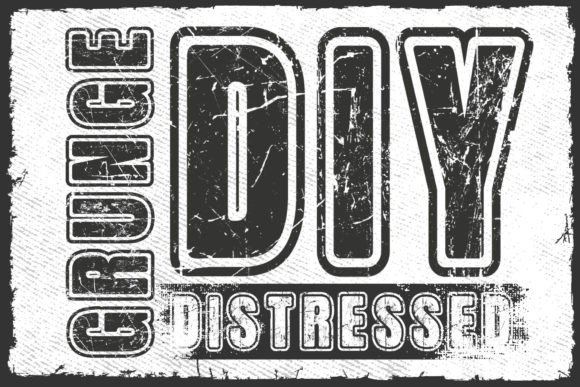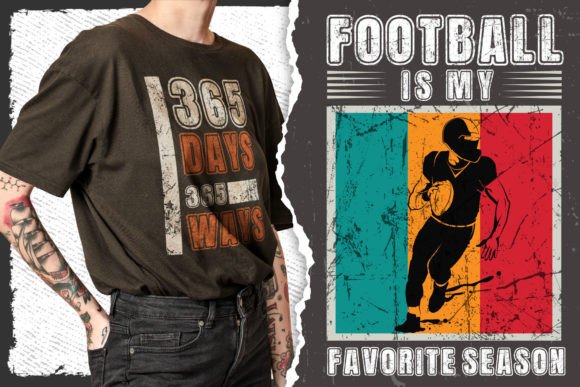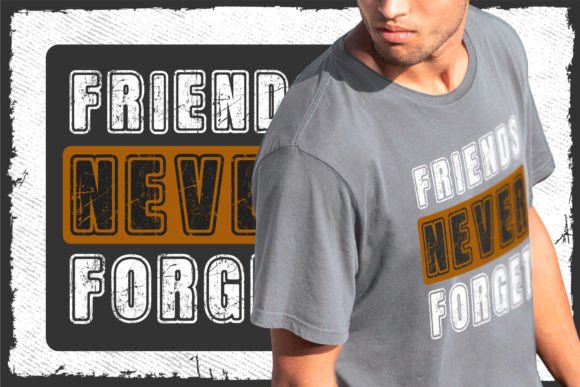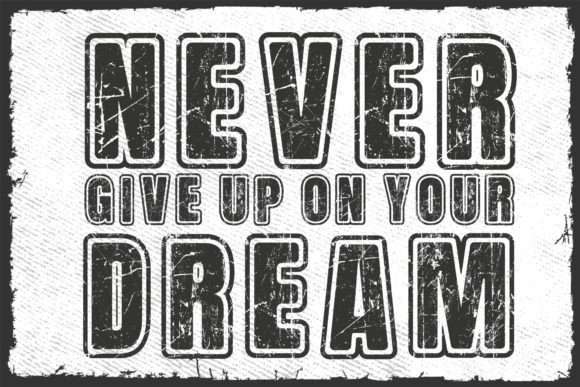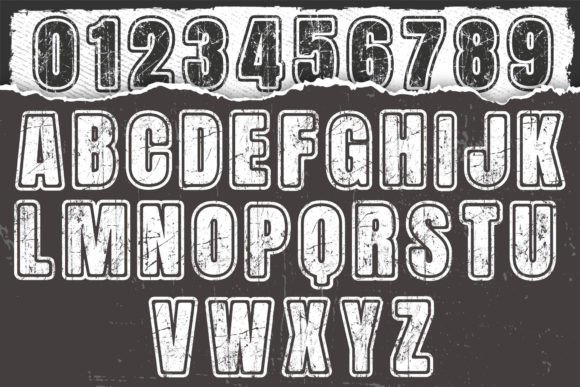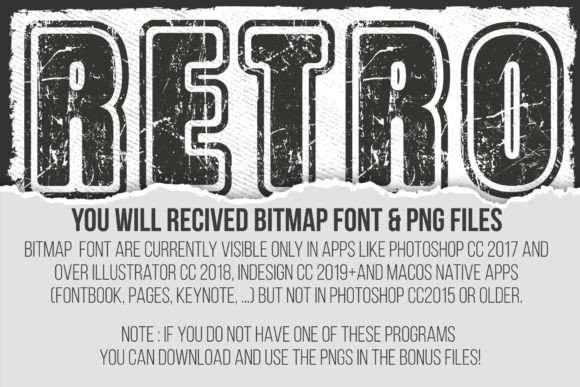
Give Your Designs a Vintage Edge with Grunge DIY Distressed Font
You know that moment when you’re brainstorming ideas for your next design project and you stumble upon the perfect font? It’s like a lightbulb goes off in your head and you can envision the entire project taking shape. For me, that moment happened when I discovered the Grunge DIY Distressed Font. This vintage, retro grunge color font is a game-changer for designers who want to add a touch of edginess to their projects.
The Grunge DIY Distressed Font is a versatile tool that can be used in a variety of design projects, from logos and graphics to quotes and phrases. Its unique distressed look adds a sense of character and authenticity to any design, making it a valuable asset for designers who want to stand out from the crowd.
Grunge DIY Distressed Font Key Features
- Unique Characteristics: Distressed, DIY-inspired aesthetic with a grunge feel, perfect for adding a raw, edgy touch to designs.
Grunge Diy Distressed Font Review
Overall, I think the Grunge Diy Distressed Font has a lot going for it. Here are some of the things that work well:
- ✨ The distressed texture gives the font a unique, handmade feel that’s perfect for creative projects.
- ✨ The font is highly customizable, with a range of settings that allow you to control everything from the amount of distortion to the color of the text.
- ✨ The font is available in a range of weights, from light to bold, which makes it suitable for a wide range of applications.
However, there are a few limitations to be aware of:
- ⚠️ The font can be quite heavy-handed with the distortion, which can make it difficult to read in certain situations.
- ⚠️ The font doesn’t include a lot of advanced features, such as ligatures or swashes.
- ⚠️ The font may not be suitable for use in formal or professional contexts, due to its distressed and casual appearance.
Overall, I think the Grunge Diy Distressed Font is a great choice for creative projects that require a unique and eye-catching font. Just be aware of its limitations and use it accordingly.
The Grunge DIY Distressed Font is perfect for:
1. Music festival or concert posters.
2. Vintage or retro-themed designs.
3. DIY or handmade product labels.
4. Grunge or alternative music-inspired designs.
Alternatives to Grunge Diy Distressed FontFontin
Fontin is a distressed font with a rough, textured feel. It’s perfect for designs that need a rugged, edgy look. Use it for posters, flyers, or other promotional materials that require a bold, eye-catching aesthetic.
Compared to Grunge Diy Distressed Font, Fontin has a more uniform texture and a slightly more modern feel.
Skidrow
Skidrow is a distressed font with a worn, vintage look. It’s ideal for designs that need a nostalgic or retro feel. Use it for designs related to music, art, or other creative fields.
Compared to Grunge Diy Distressed Font, Skidrow has a more subtle, organic texture and a softer feel.
Woodford
Woodford is a distressed font with a weathered, worn look. It’s perfect for designs that need a rugged, outdoorsy feel. Use it for designs related to nature, adventure, or travel.